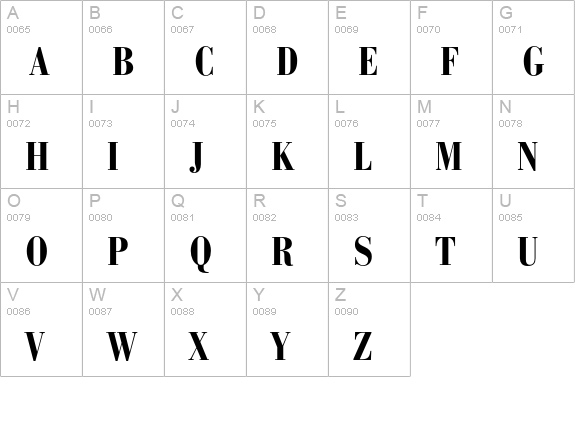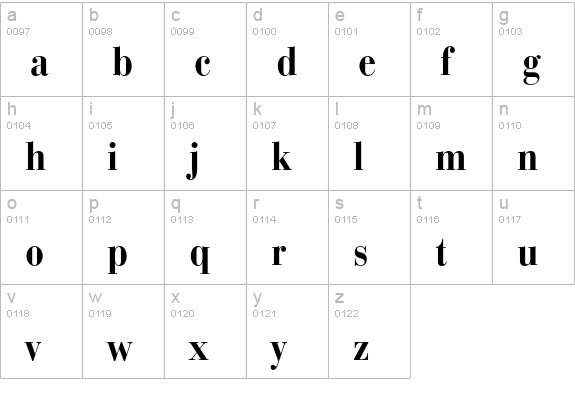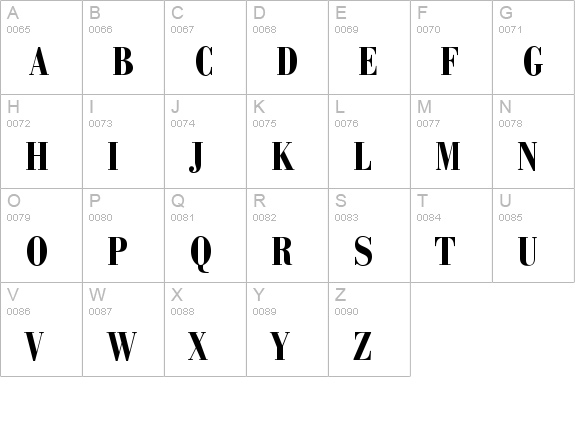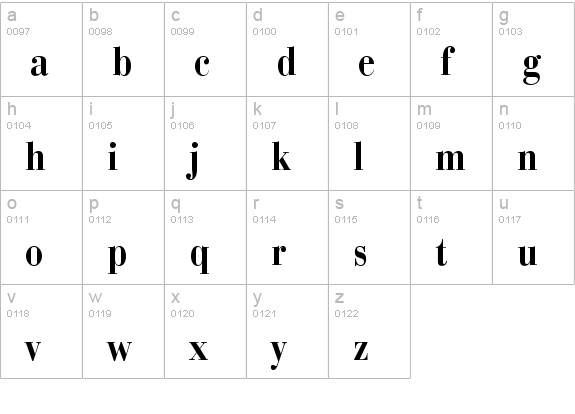
Bauer Bodoni Std 2 Bold Condensed Font Details
Bauer Bodoni Std 2 Bold Condensed is a strong, high-contrast, condensed-width variant in the Bauer typeface family \xE2\x80\x94 well suited to headlines, attention-grabbing titles, and strong calls-to-action.
Bauer Bodoni Std 2 Bold Condensed is a striking and elegant typeface that exudes sophistication and modernity. Its bold and condensed design makes it perfect for creating eye-catching headlines and impactful designs. The sharp serifs and clean lines of Bauer Bodoni Std 2 Bold Condensed give it a timeless appeal that is both classic and contemporary. This font is ideal for projects that require a strong and commanding presence, such as posters, magazine covers, and branding materials. Its versatility allows it to be used in a variety of design contexts, from fashion editorials to luxury branding. And the best part? Bauer Bodoni Std 2 Bold Condensed is freely available to download at FontsMarket.com. Whether you're a professional designer looking for a powerful typeface to elevate your projects or a student exploring typography, this font is a valuable addition to your font library. Don't miss out on the opportunity to enhance your designs with this elegant and impactful typeface.